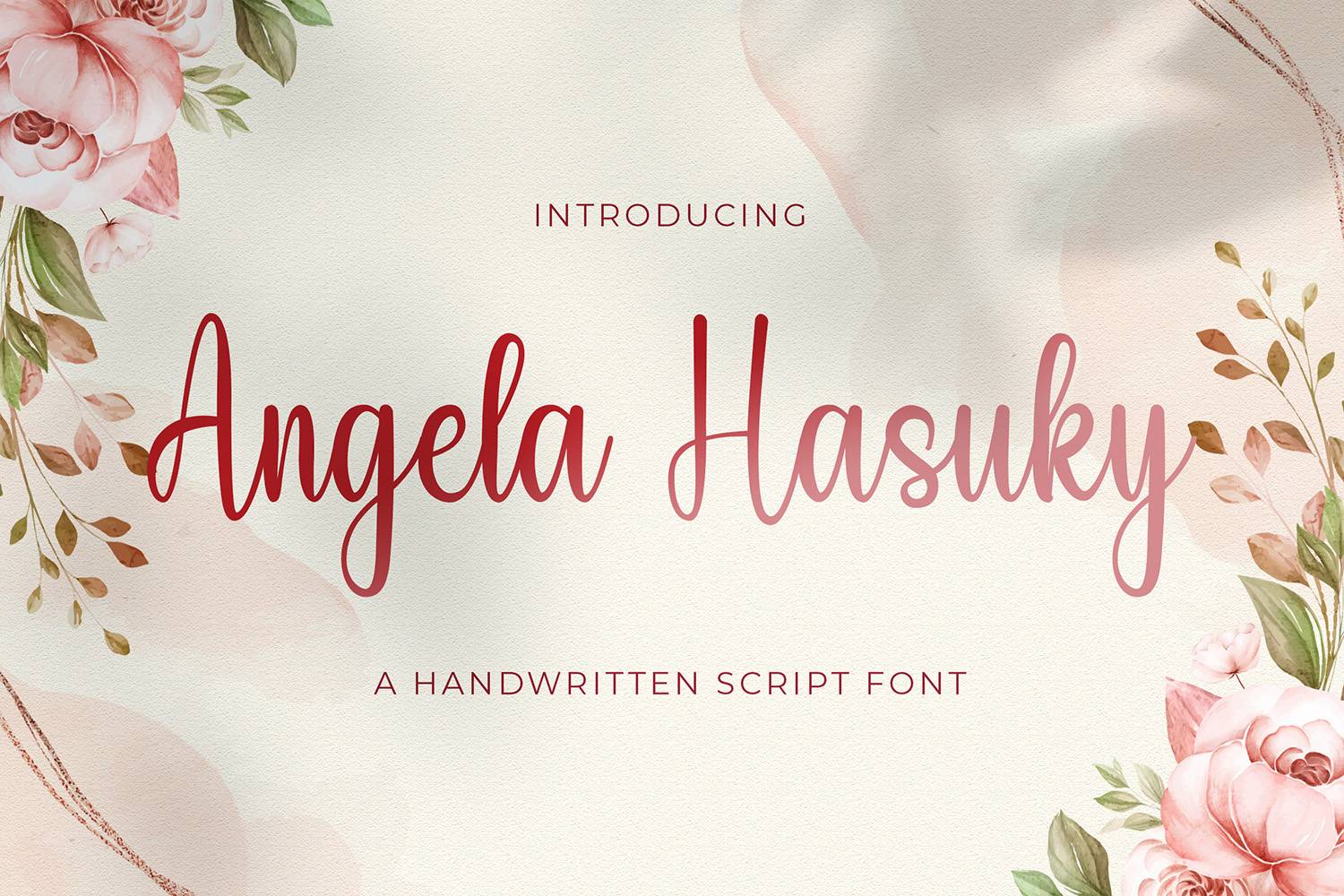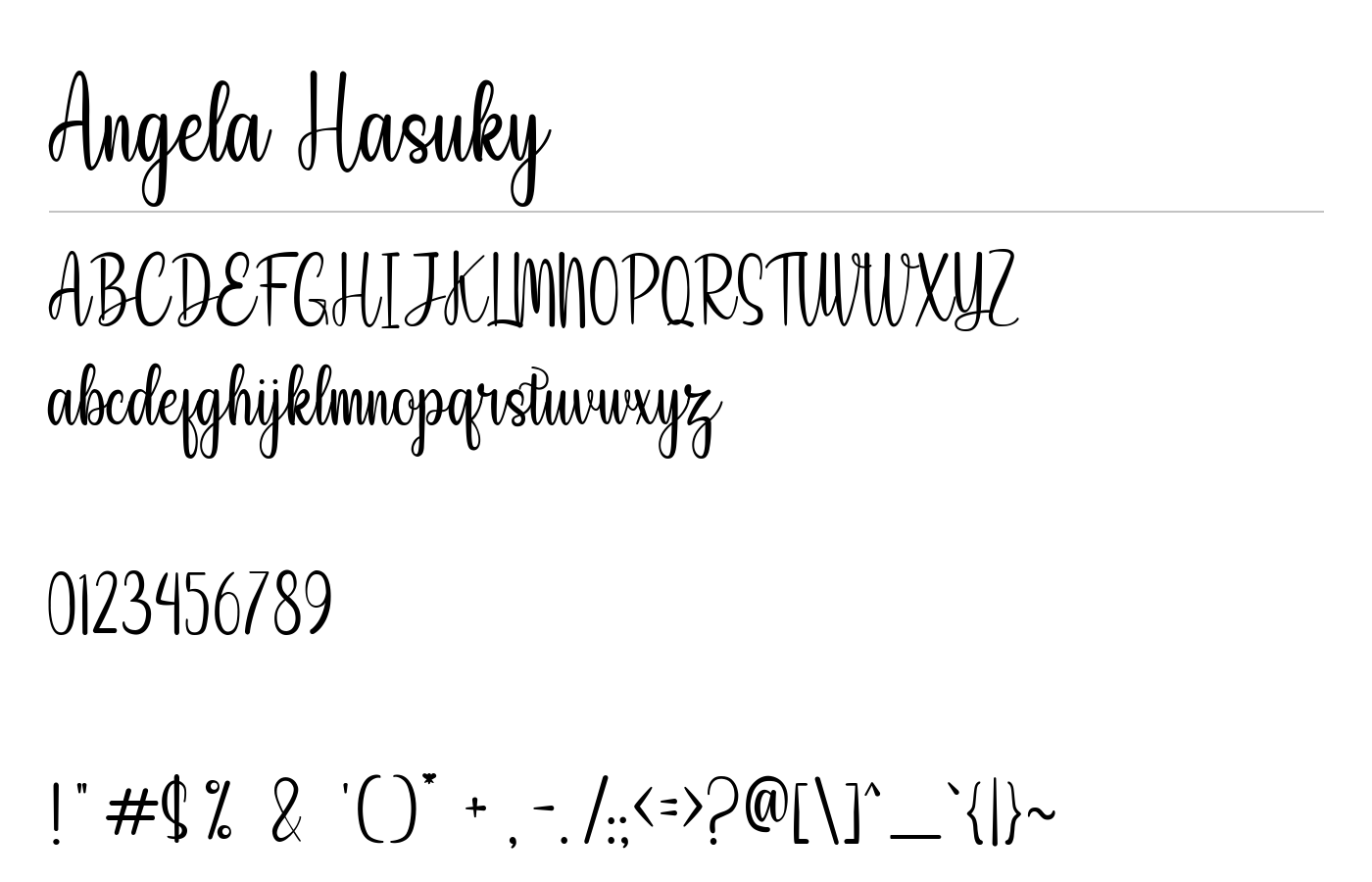
Angela Hasuky is a playful, handwritten script font with tall, narrow letterforms and a delicate, smooth stroke that creates an airy and elegant feel. Its casual yet refined style pairs well with feminine and creative designs, making it ideal for invitations, branding, and stylish headlines. This font shines when used for projects that want to convey warmth and personality with a modern, approachable touch.
Angela Hasuky Font
About Angela Hasuky Font